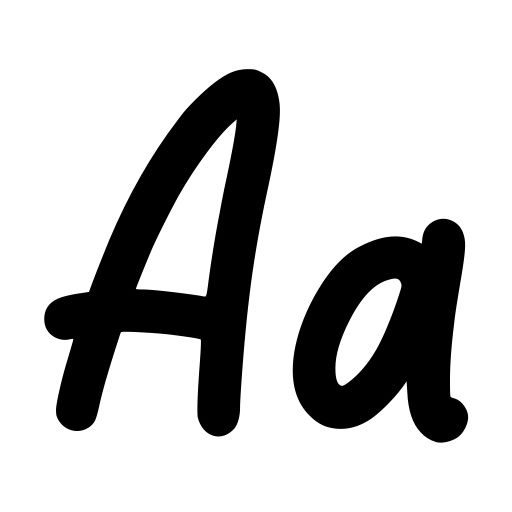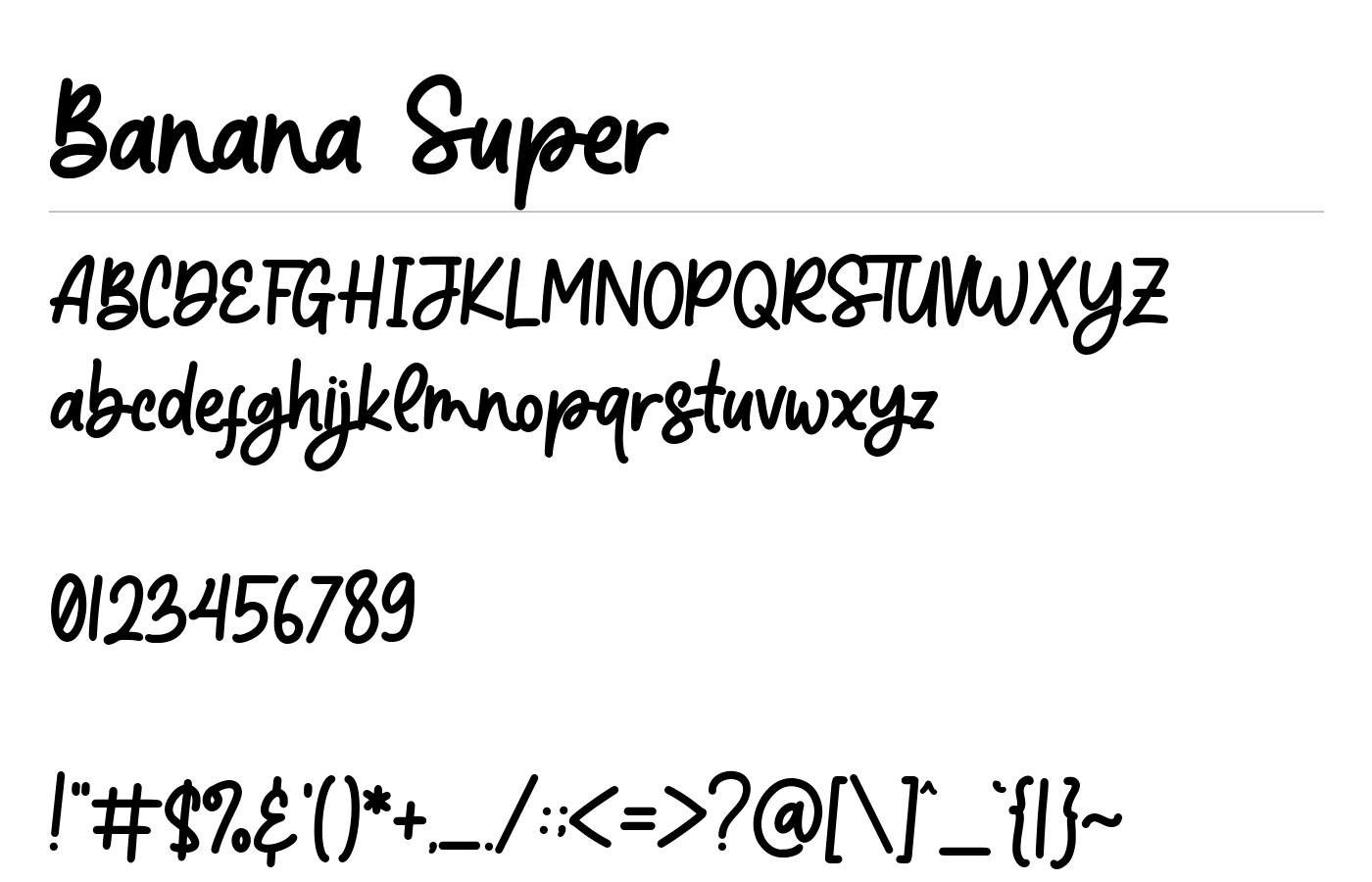
Banana Super is a playful and casual handwritten script font with a friendly, relaxed vibe. Its rounded, flowing letterforms feature moderate weight and smooth stroke contrast, making it ideal for conveying warmth and approachability in branding, logos, and social media graphics. This font works well for creative projects that want a personal touch without sacrificing readability.
Banana Super Font
About Banana Super Font
| Font family | Banana Super Font |
| Designer | Ghazi Humam Fauzan |